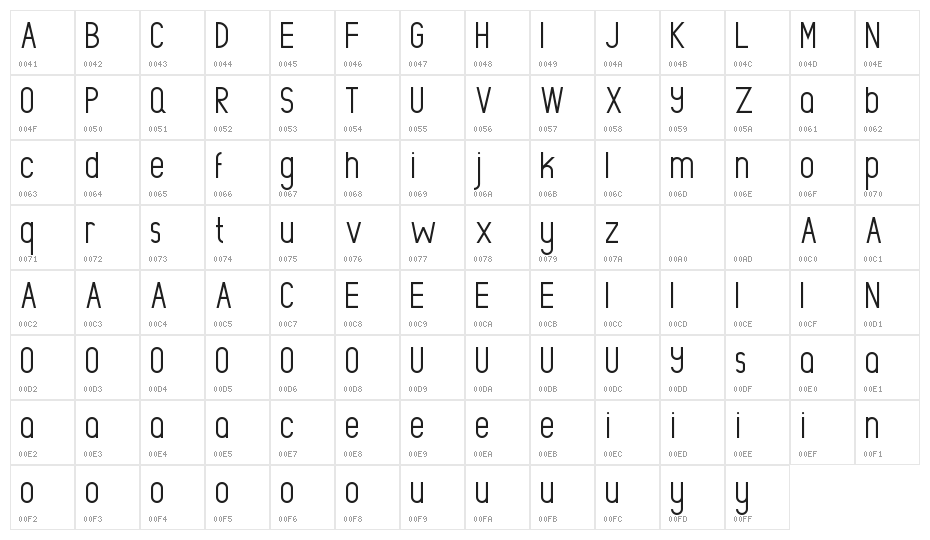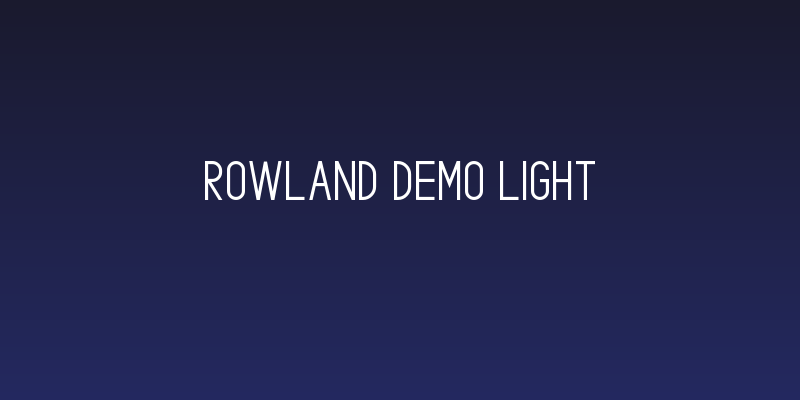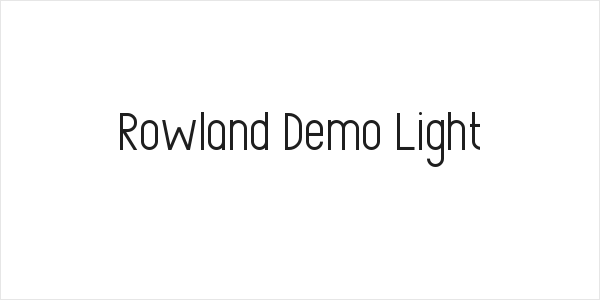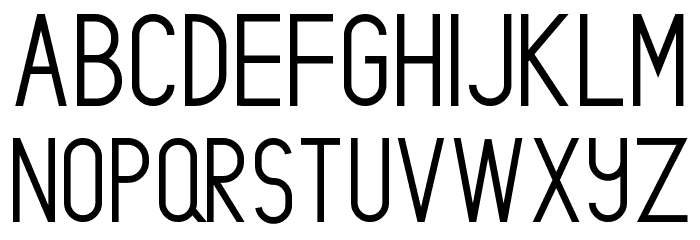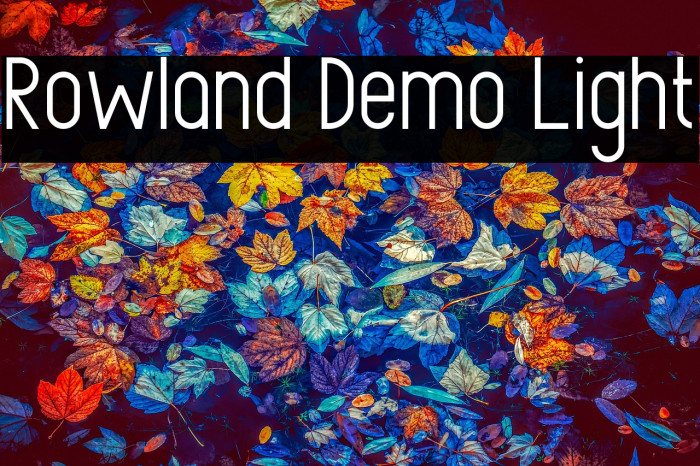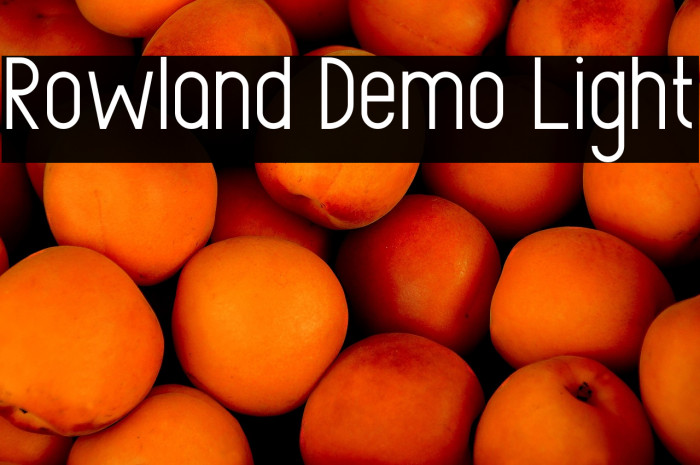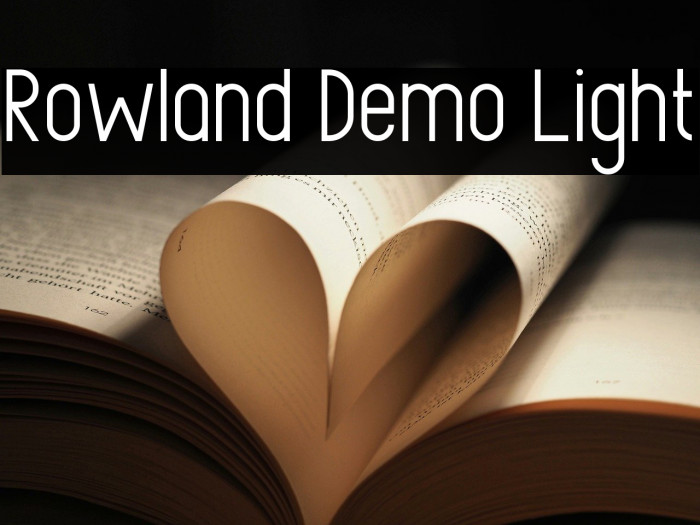
Rowland Demo Light Font
Rowland Demo Light Description
This font features a clean and modern sans-serif design with a geometric structure. The characters are tall and narrow, giving it a sleek and contemporary appearance. The strokes are consistent in width, contributing to a uniform and balanced look. The uppercase and lowercase letters maintain a harmonious relationship, with rounded edges that soften the overall aesthetic. This font is versatile, suitable for both digital and print media, and can be used effectively in various design contexts.
| Proposed Projects | Ideal for branding, web design, editorial layouts, and advertising materials. |